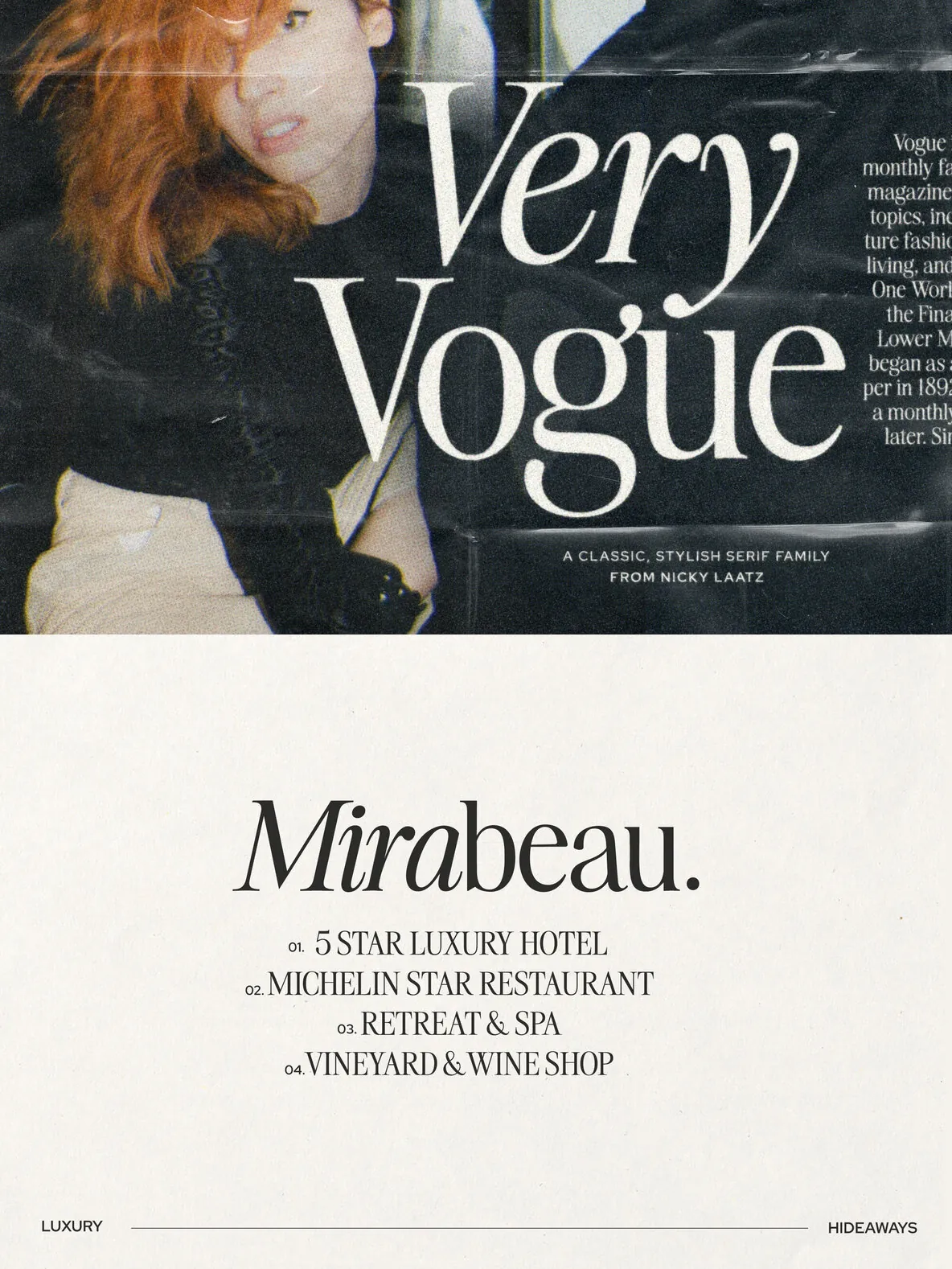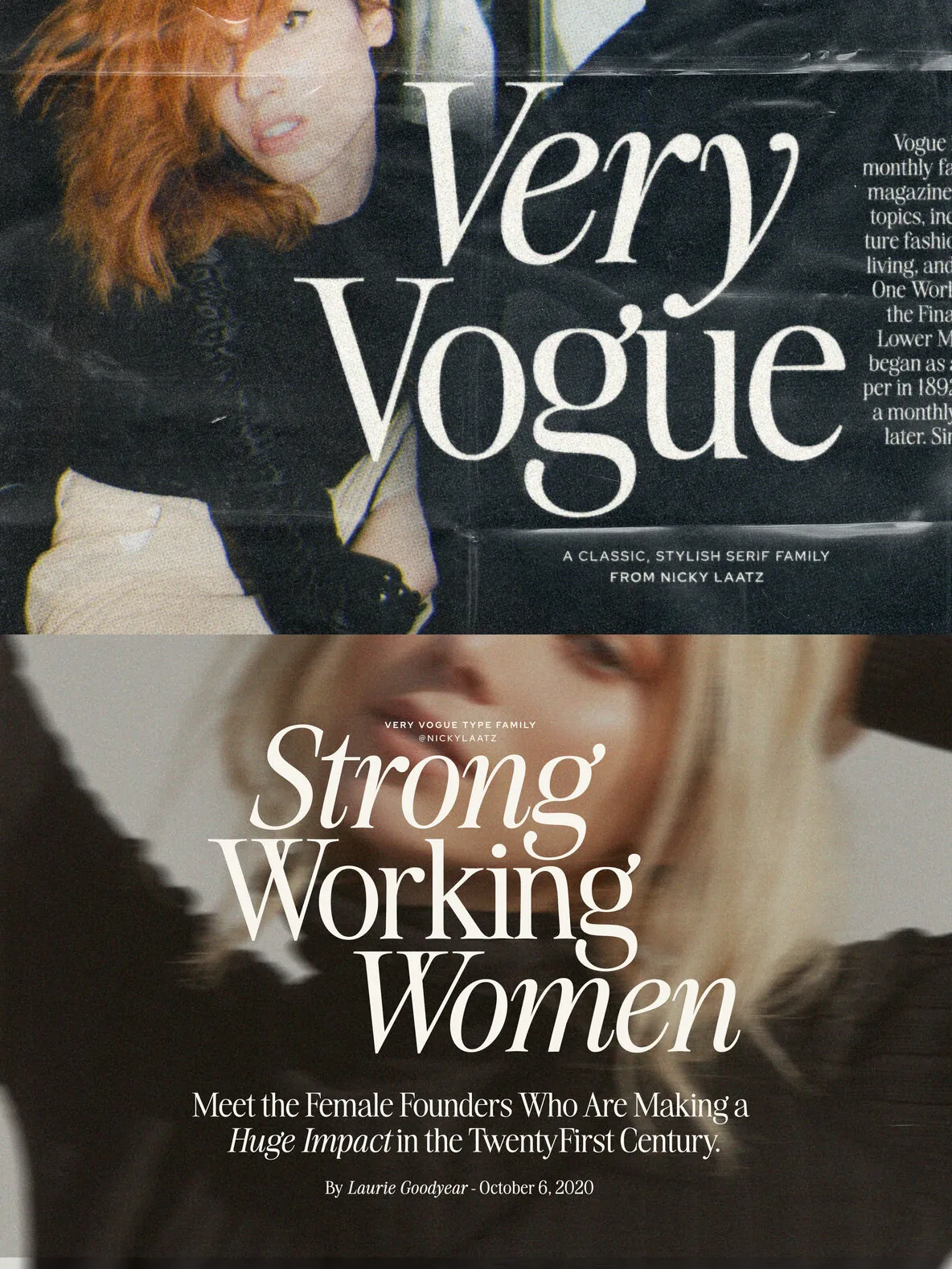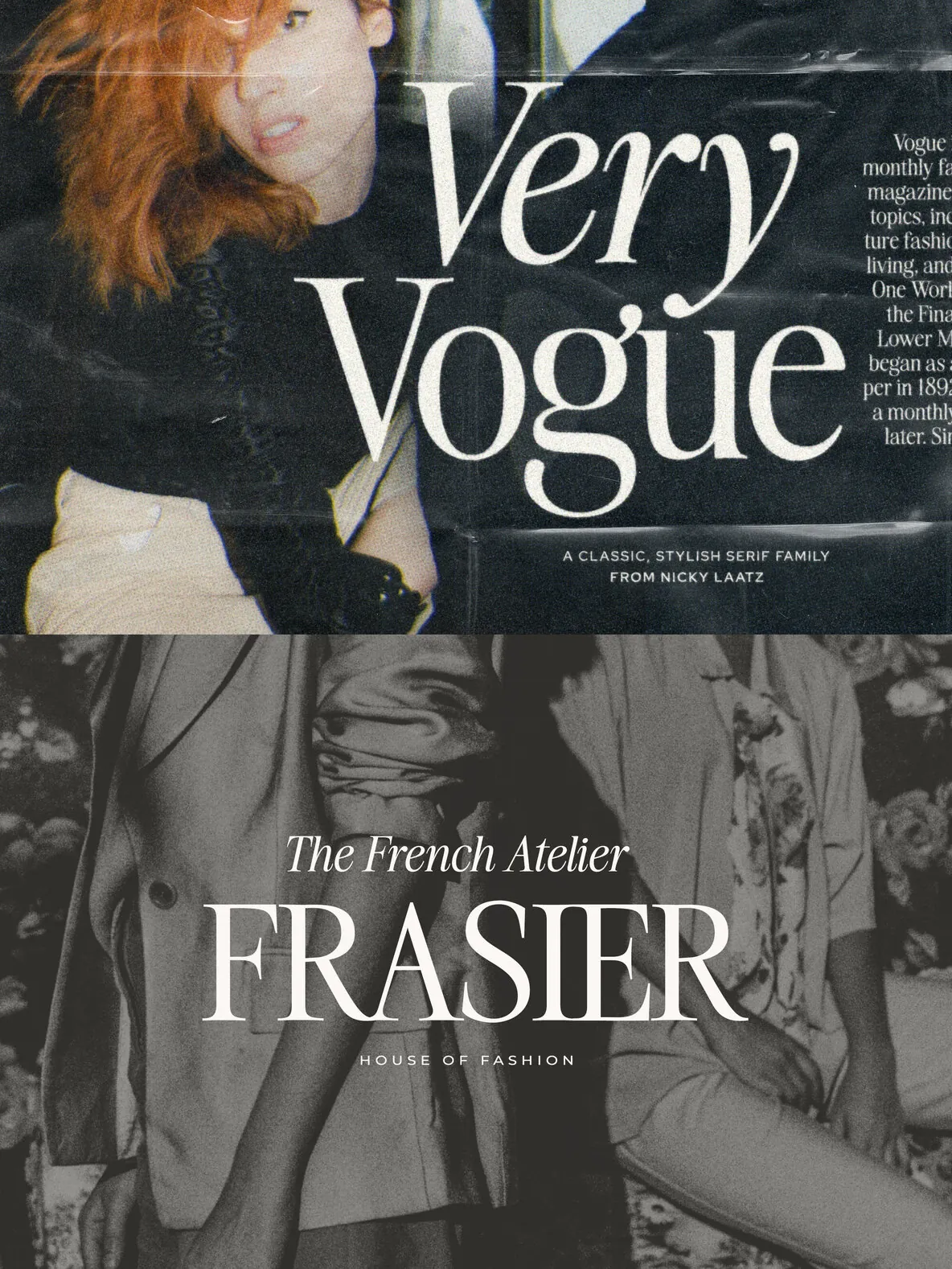
Introducing the Elegant ‘Very Vogue’ Serif Typeface
Immerse yourself in the exquisite charm of the 80’s fashion glamour with the new ‘Very Vogue’ serif typeface family by renowned designer Nicky Laatz. Emanating elegance and sophistication, this typeface is a tantalizing blend of classic refinement and contemporary design elements–the perfect way to add a touch of glamour to your creative productions.
A Modern Masterpiece by Designer Nicky Laatz
Fascinatingly versatile, ‘Very Vogue’ is an absolute must-have for graphic designers and marketing firms seeking a unique touch for their textual content. This professionally crafted typeface allures with its polish and pizzazz–drawing the eye while ensuring readability. Its gorgeous form effortlessly adapts to a variety of creative applications, from evocative headlines to compelling copy and beyond.
Key Features of ‘Very Vogue’
Variety in Style: ‘Very Vogue’ offers an irresistible blend of classic and modern design elements.
Adaptable: Perfect for an array of applications including headlines, body copy, and more.
Quality Design: Crafted with professionalism and a keen eye for detail.
Designer’s Touch: Designed by internationally acclaimed creative, Nicky Laatz.